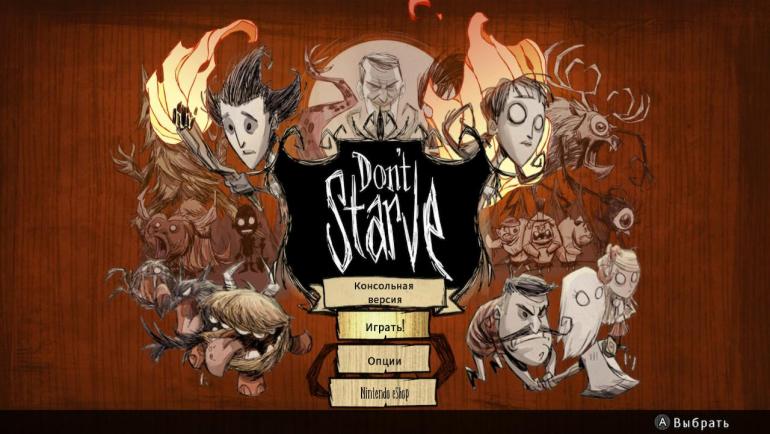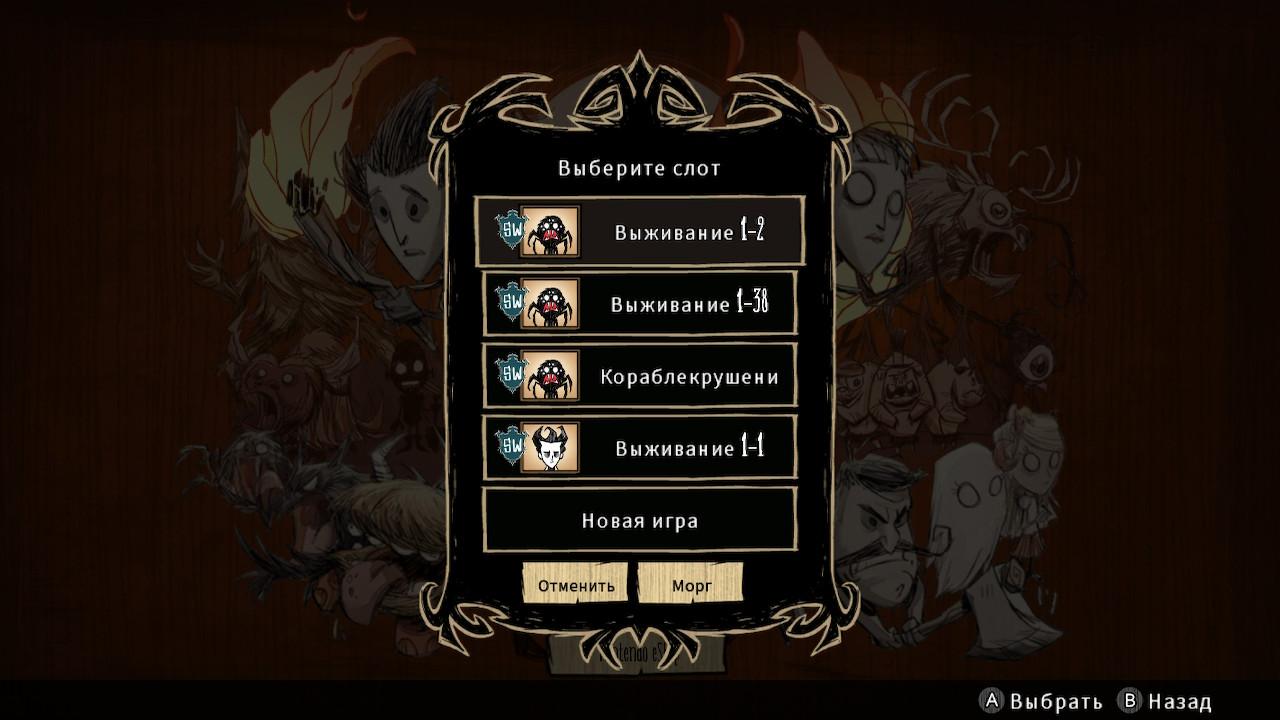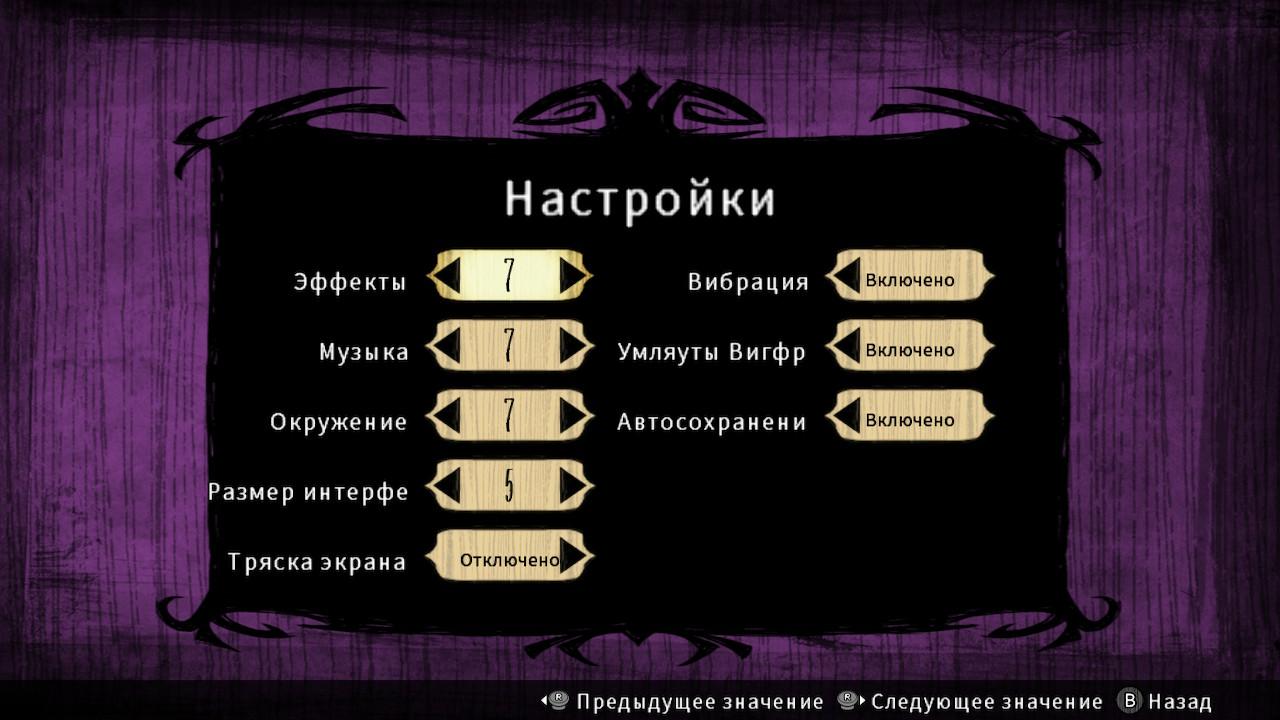
parquet Posted June 20, 2021 Share Posted June 20, 2021 PLEASE add language settings! I haven't played for a long time and now when I started game I noticed this awful font! I want to play with english language and good font, but I don't want to change system language to english because in other games russian localisations are ok. Link to comment https://forums.kleientertainment.com/forums/topic/130994-switch-terrible-russian-font/ Share on other sites More sharing options...